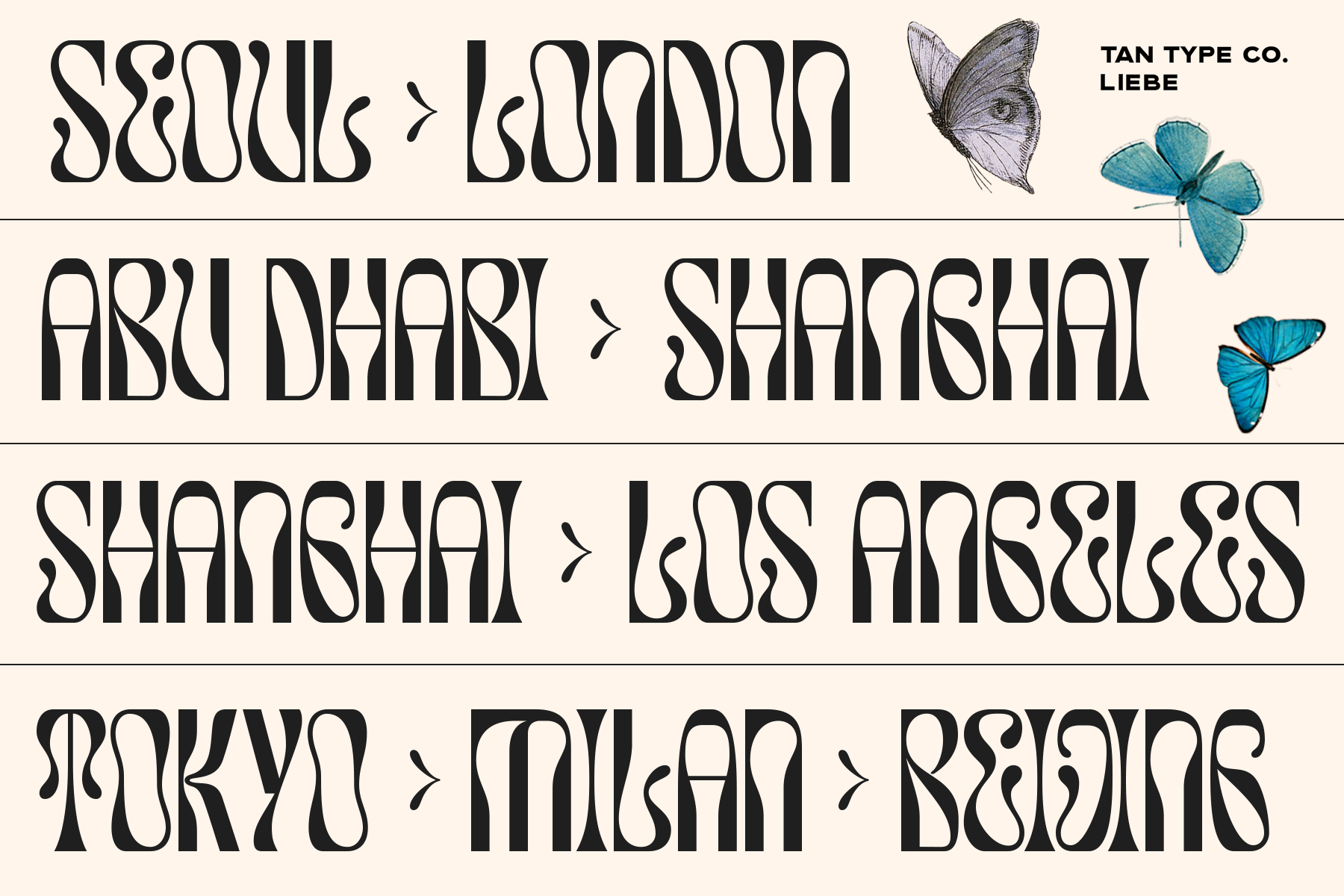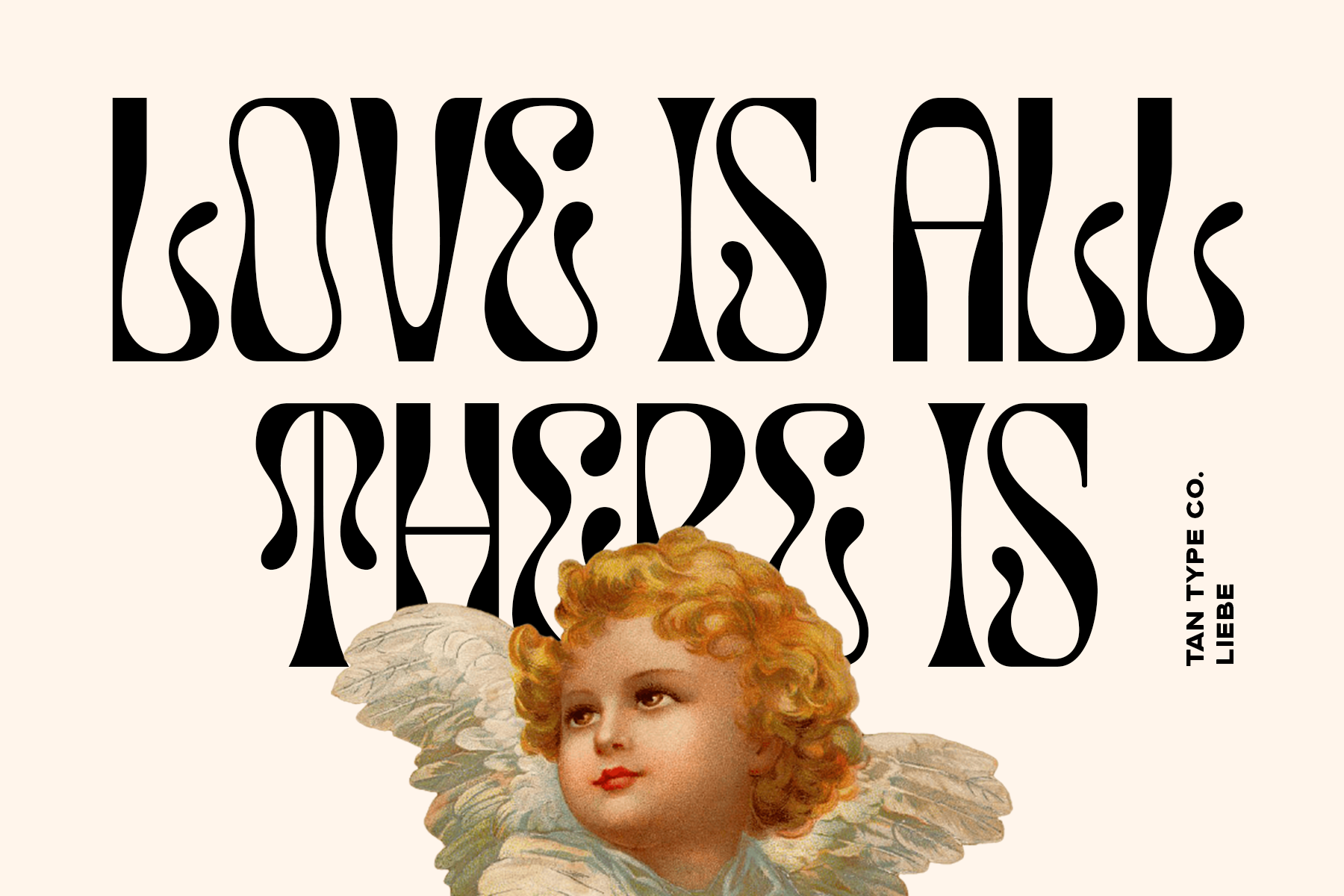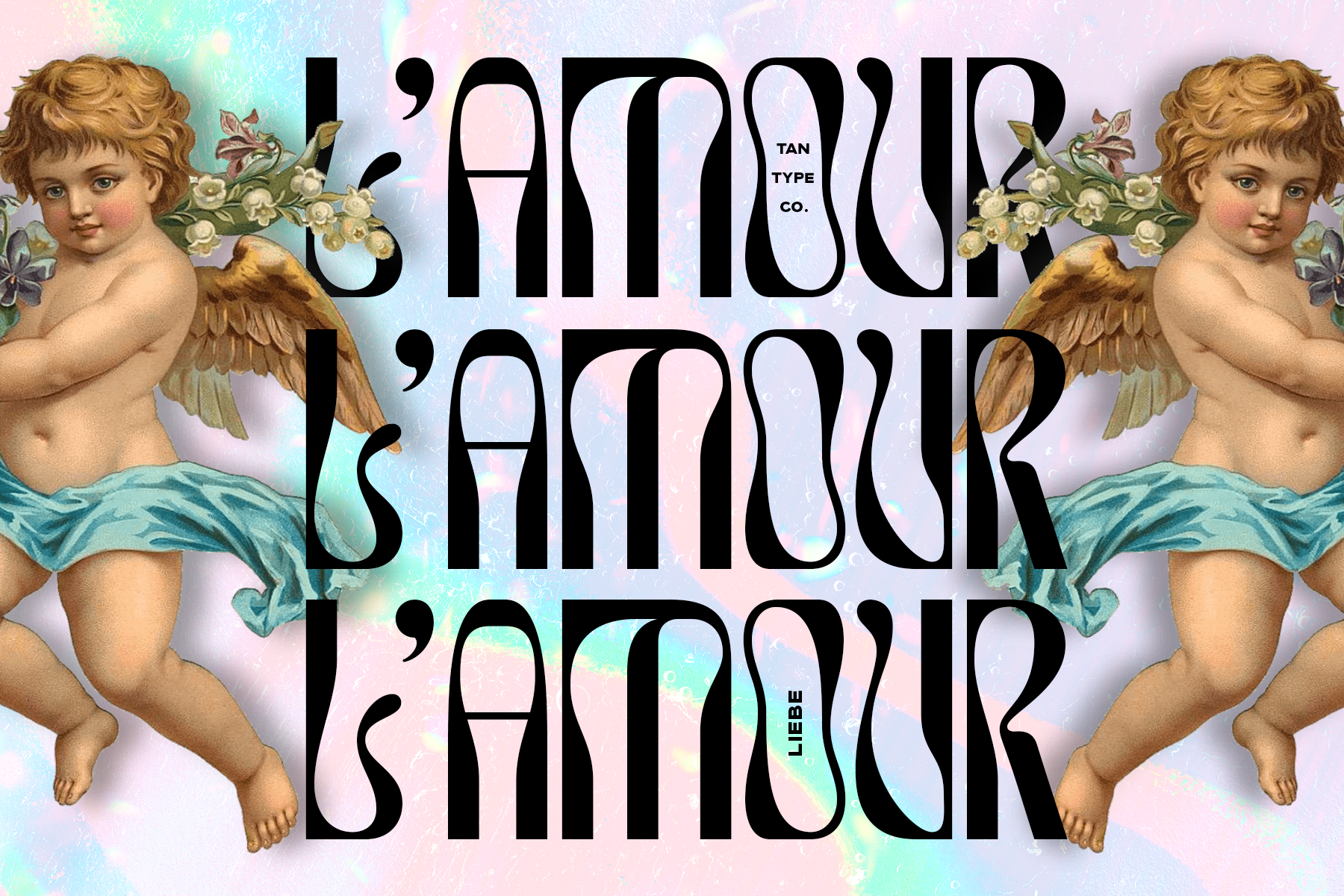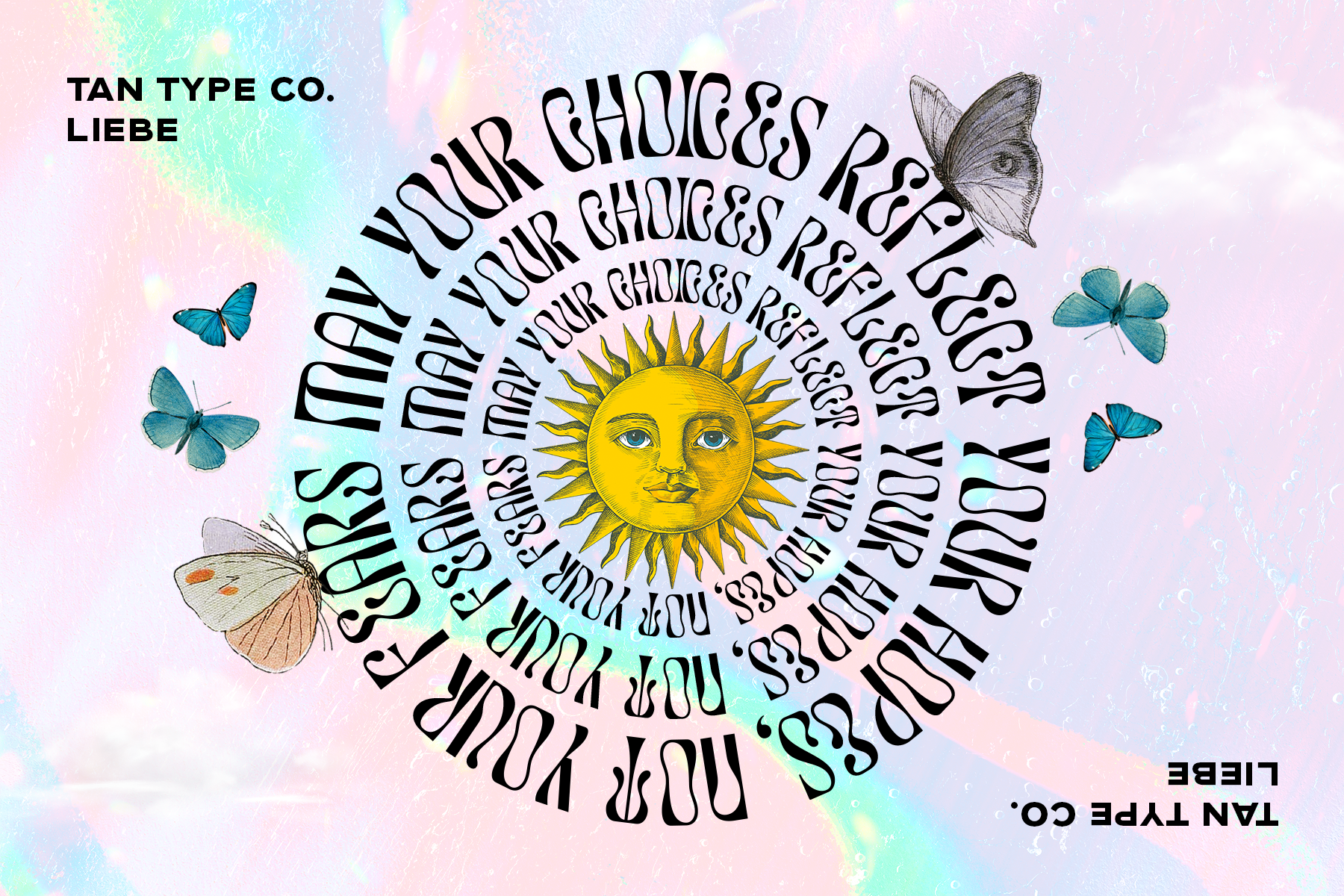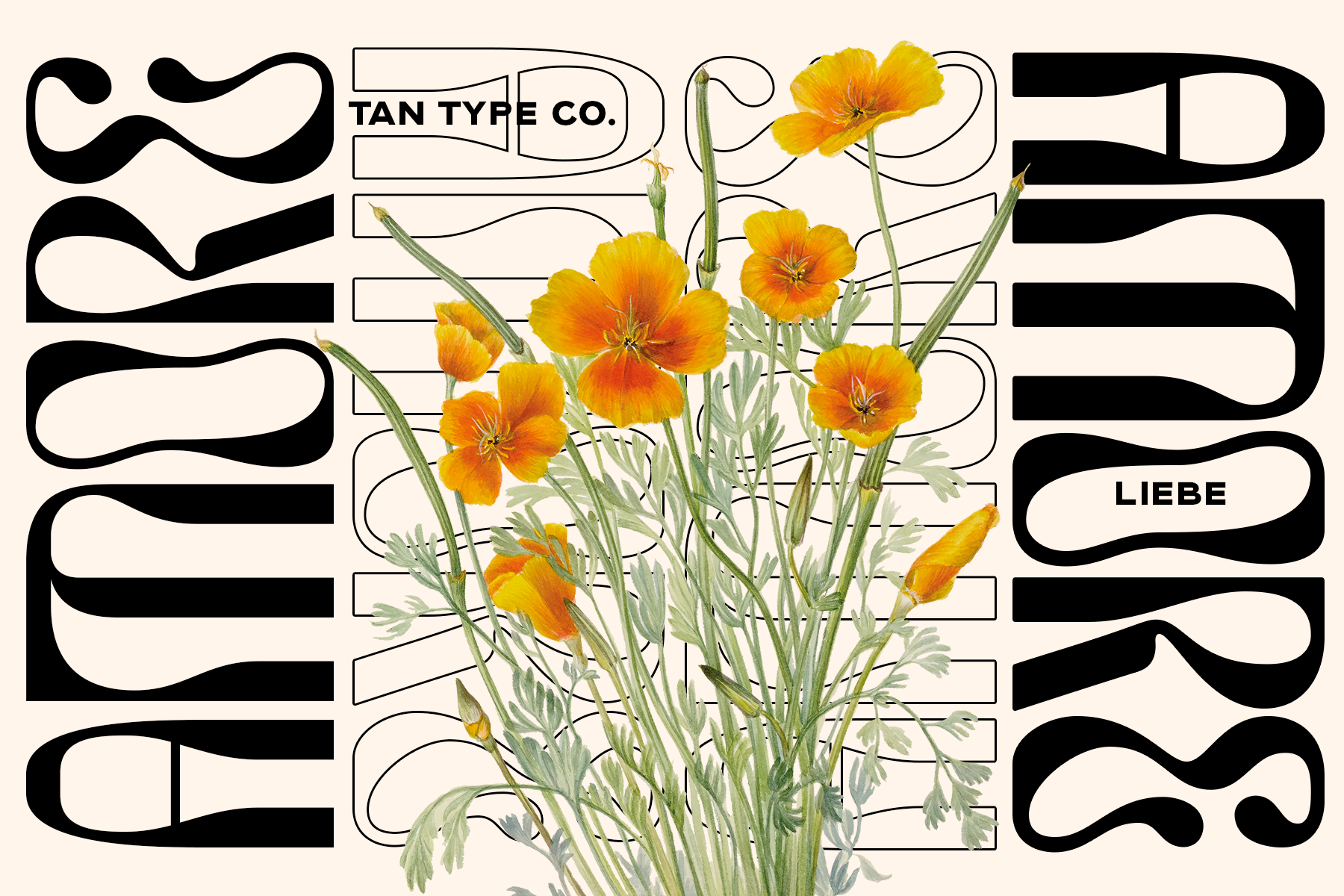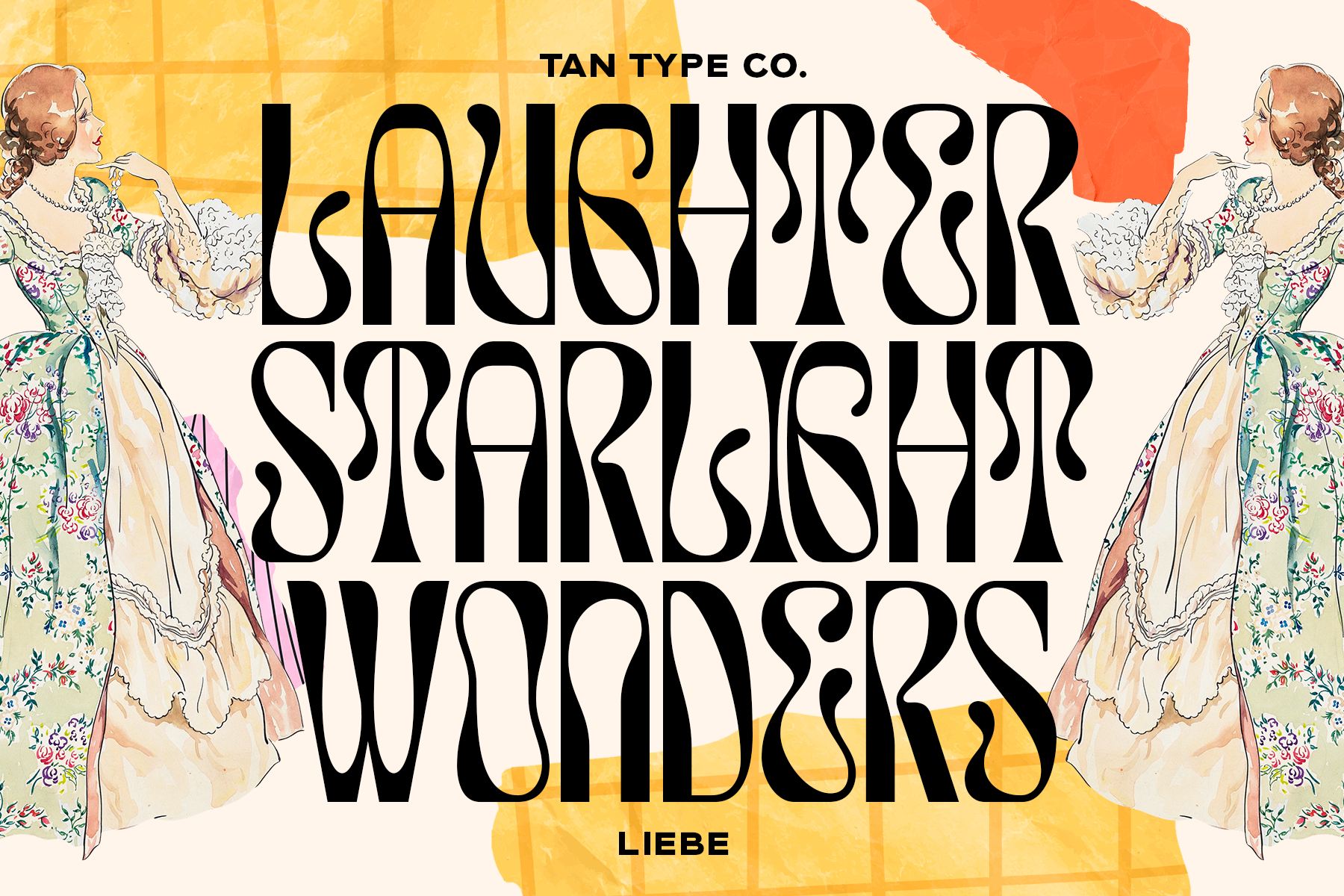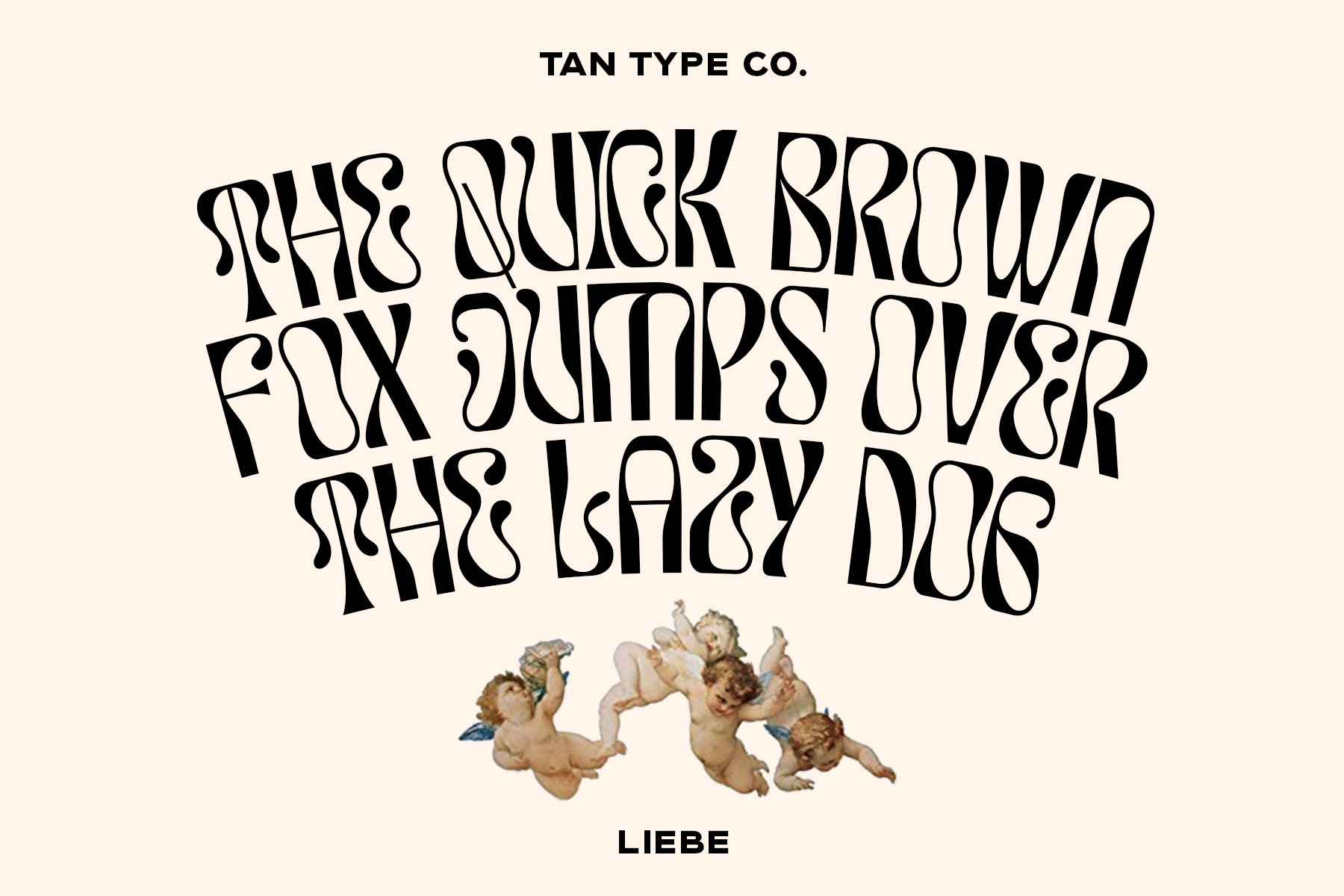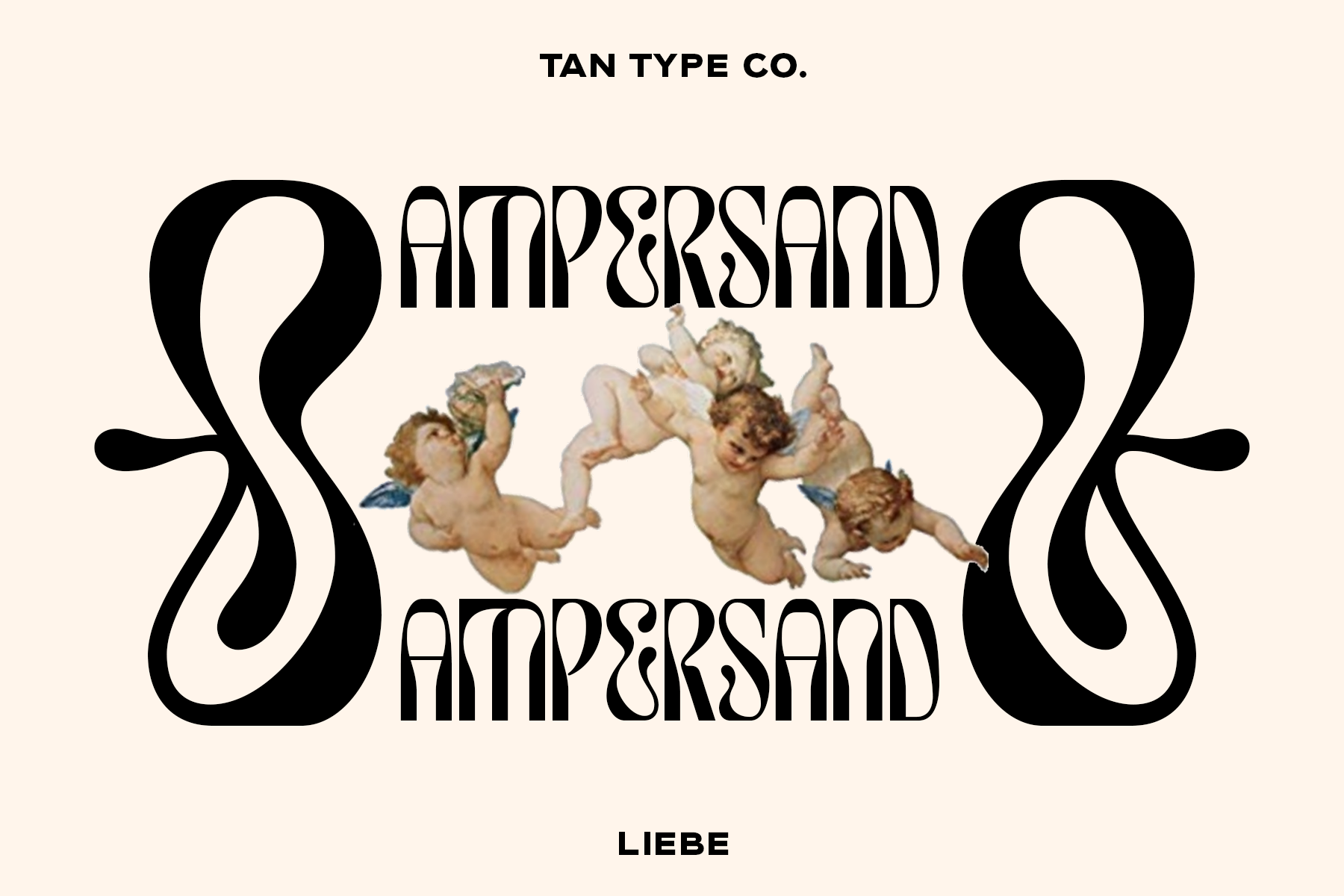
LIEBE is a bold and artistic display typeface with high contrast and flowing, sculptural forms. Its exaggerated curves and sharp cuts create a striking sense of rhythm and drama, blending elegance with a daring, contemporary spirit.